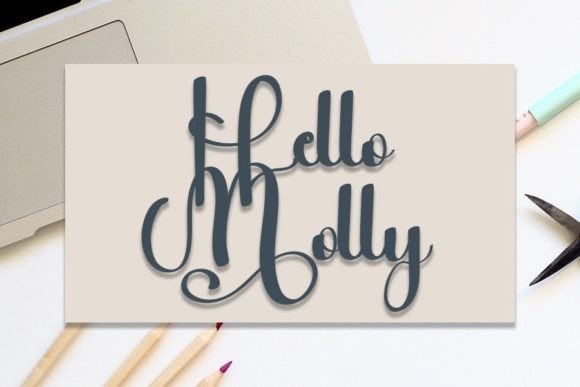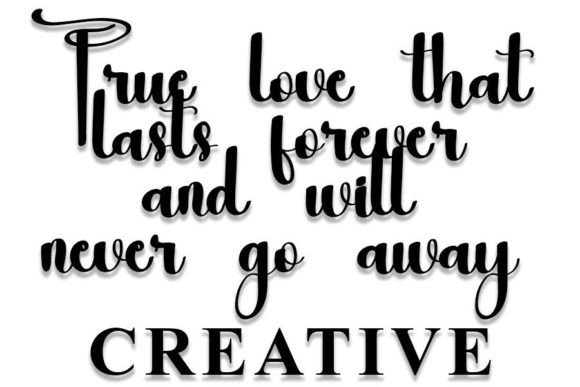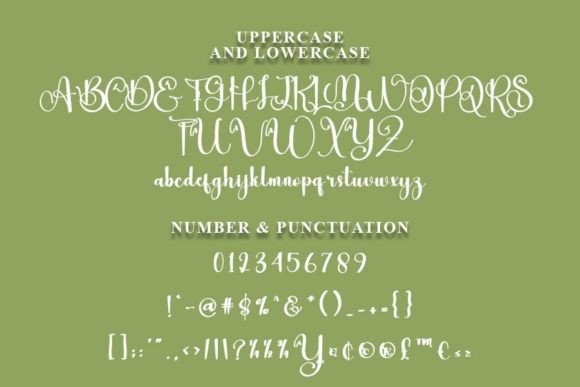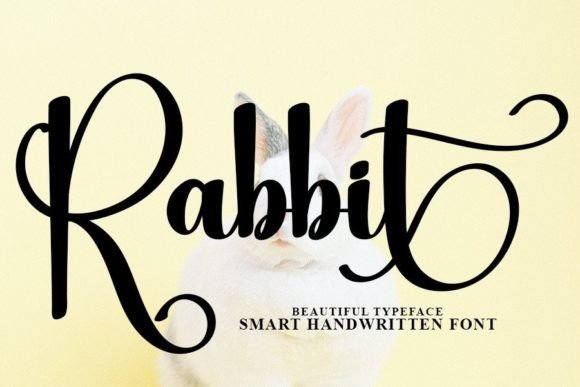
Introduction to Rabbit Font
Rabbit is a beautiful and light handwritten font with a unique feel and a stunning impact.
It will add a luxury spark to any design project you wish to create .